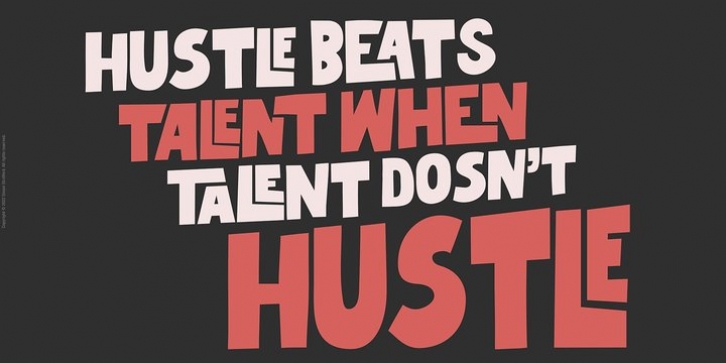
Beautiful Freak Font Family was published by It's me Simon. Beautiful Freak contains 1 styles and family package options.
Beautiful Freak is a modern bold, quirky display font with a trendy street style vibe. From posters designs to t-shirts and packaging, Beautiful Freak will give your creations that alternative minimal look and make your creative work look supercharged.
Beautiful Freak was hand-drawn, making its outlines somewhat irregular and quirky. However, it has an almost hand-lettered look; the characters jump around the baseline giving it a charming look and feel.
The typeface has a host of alternatives and ligatures included. Combine its bold shapes to give your work a more unique, hipster attitude. Easily create professional cool-type lockups that look like hand lettering.